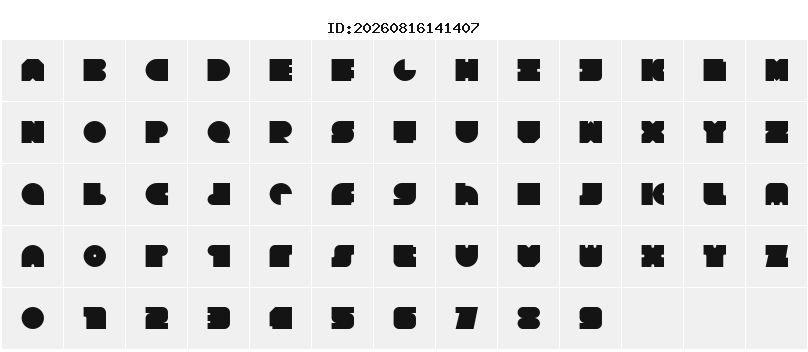
Square80 Preview
• Font Name: Square80
• Font ID: studiokmzero: Square80: 2009
• Full Font Name: Square80
• Version: Version 1.000 2009 initial release
• PostScript Name: Square80
• Character Count: 239
• Designer: Francesco Canovaro
• Manufacturer: studio kmzero
About Square80.ttf
Square80.ttf is a modern, elegant sans-serif font designed for ultimate readability and visual harmony. Perfect for branding, headlines, web design, and print materials.